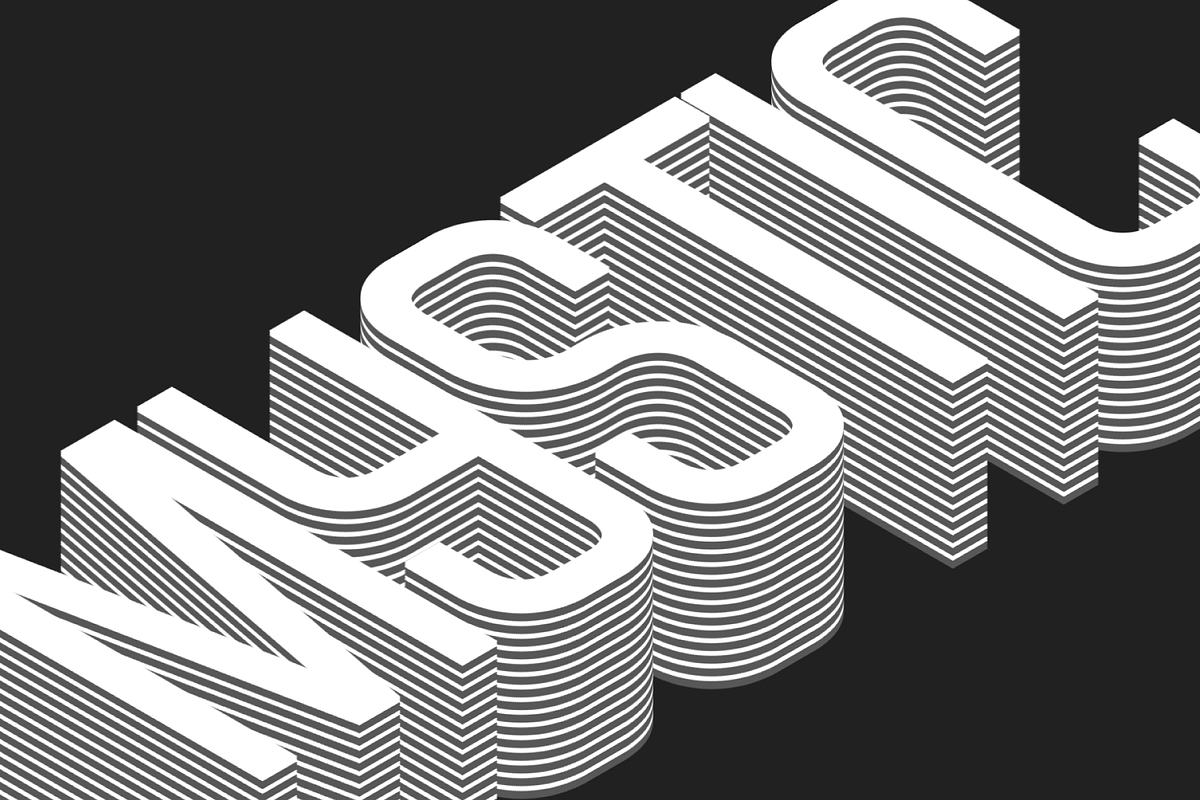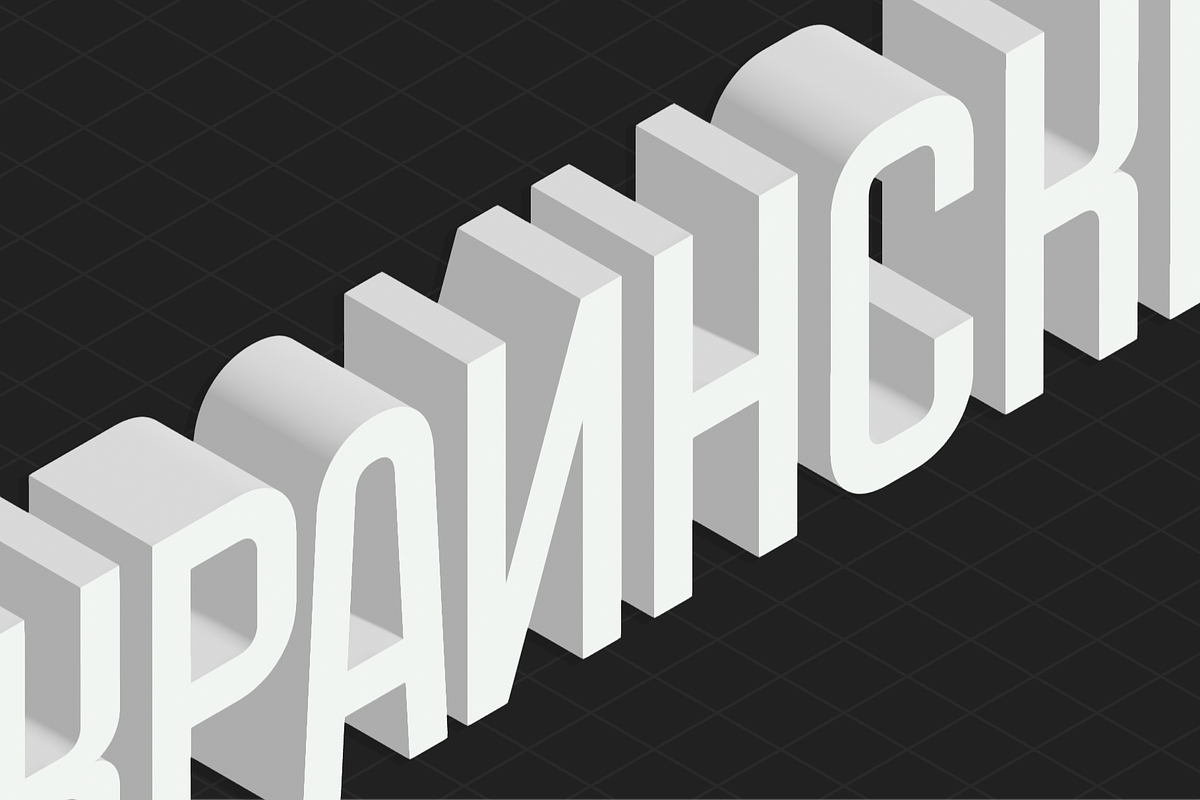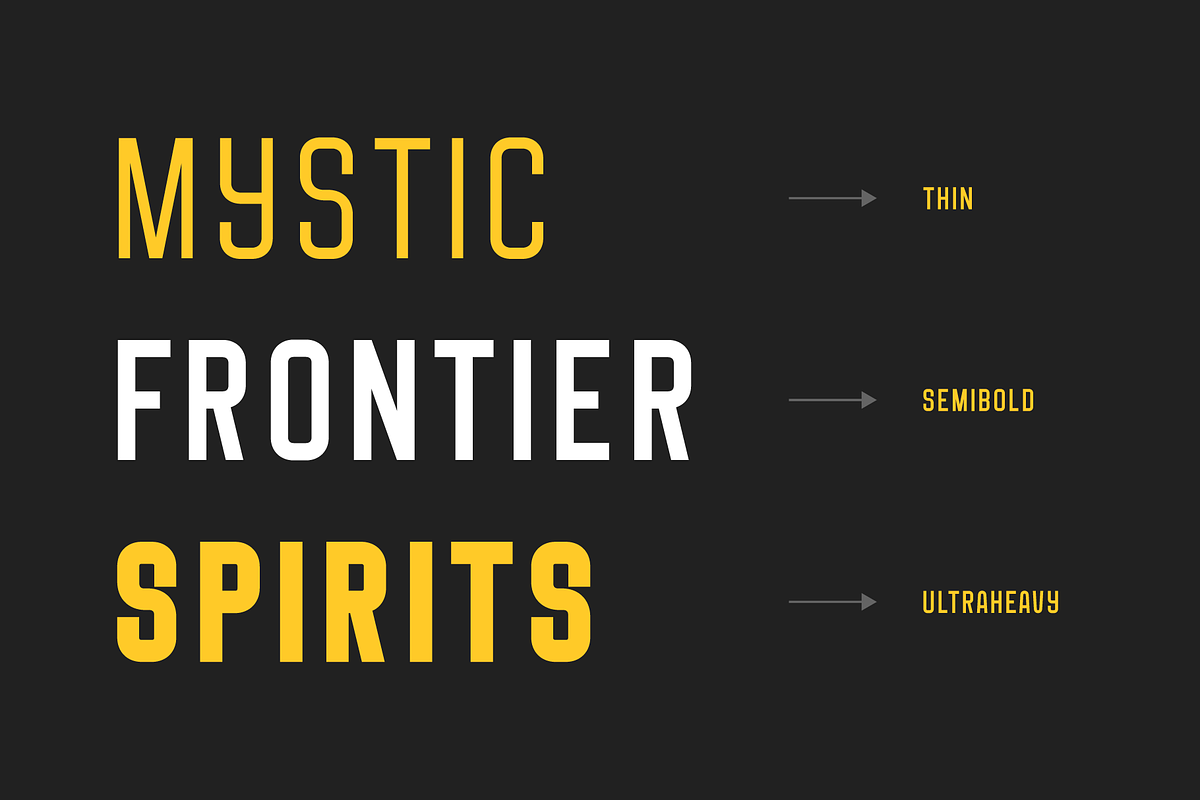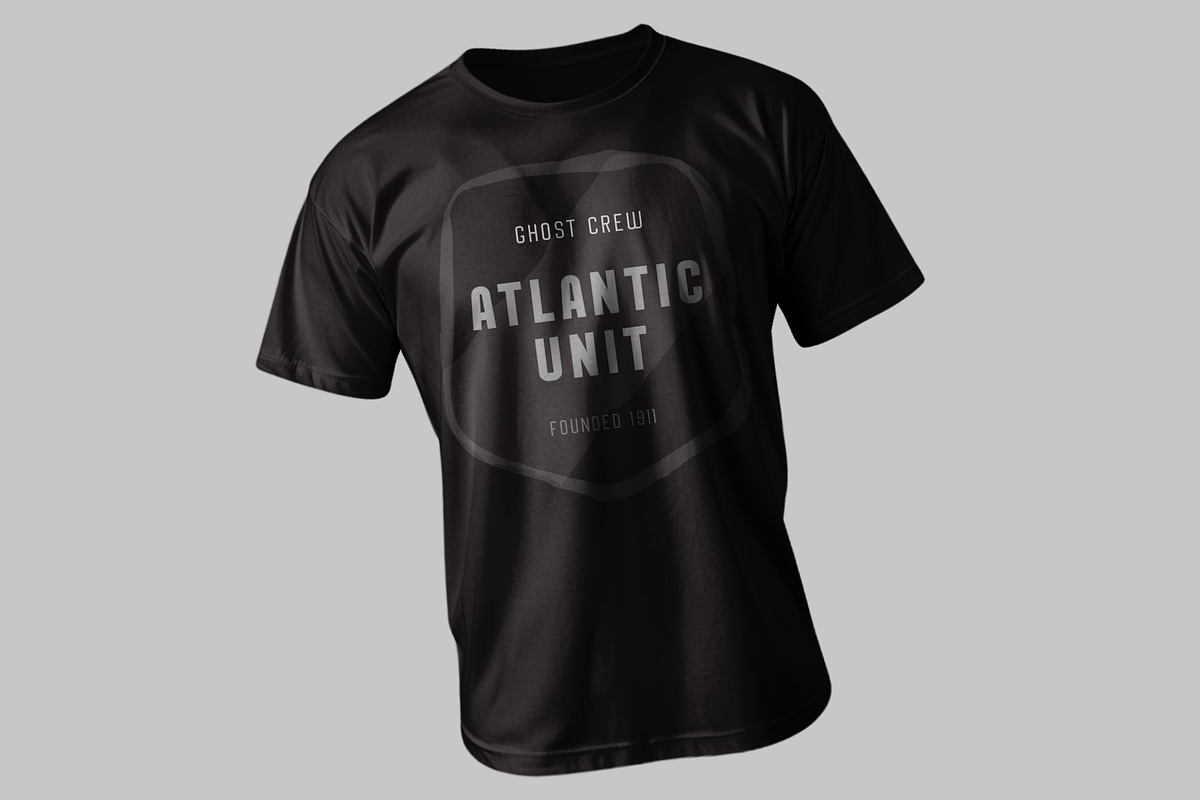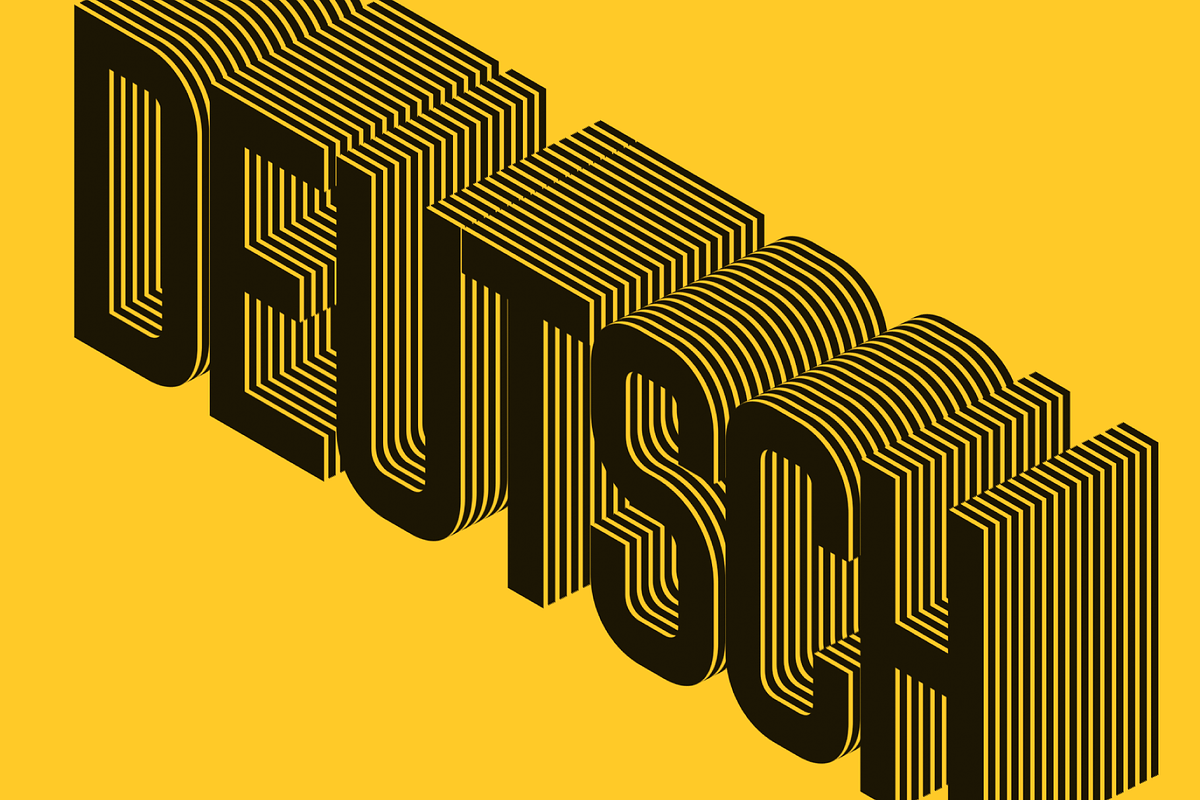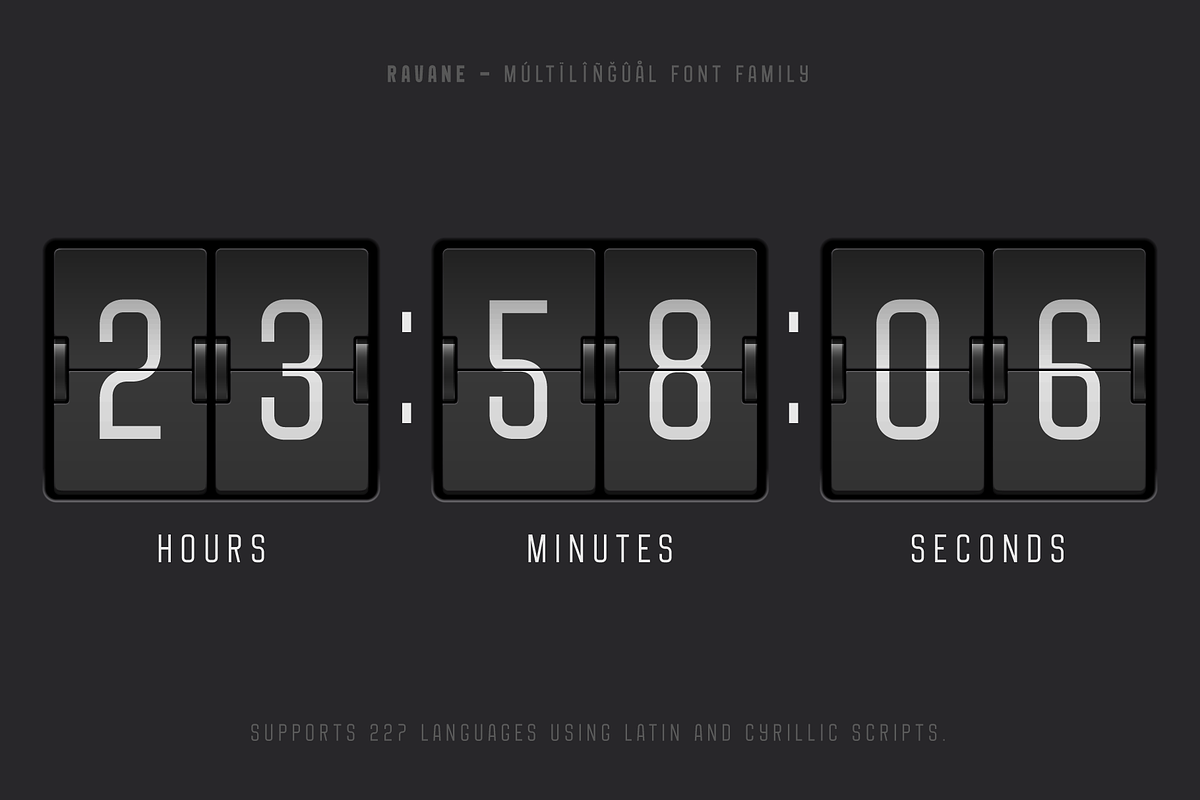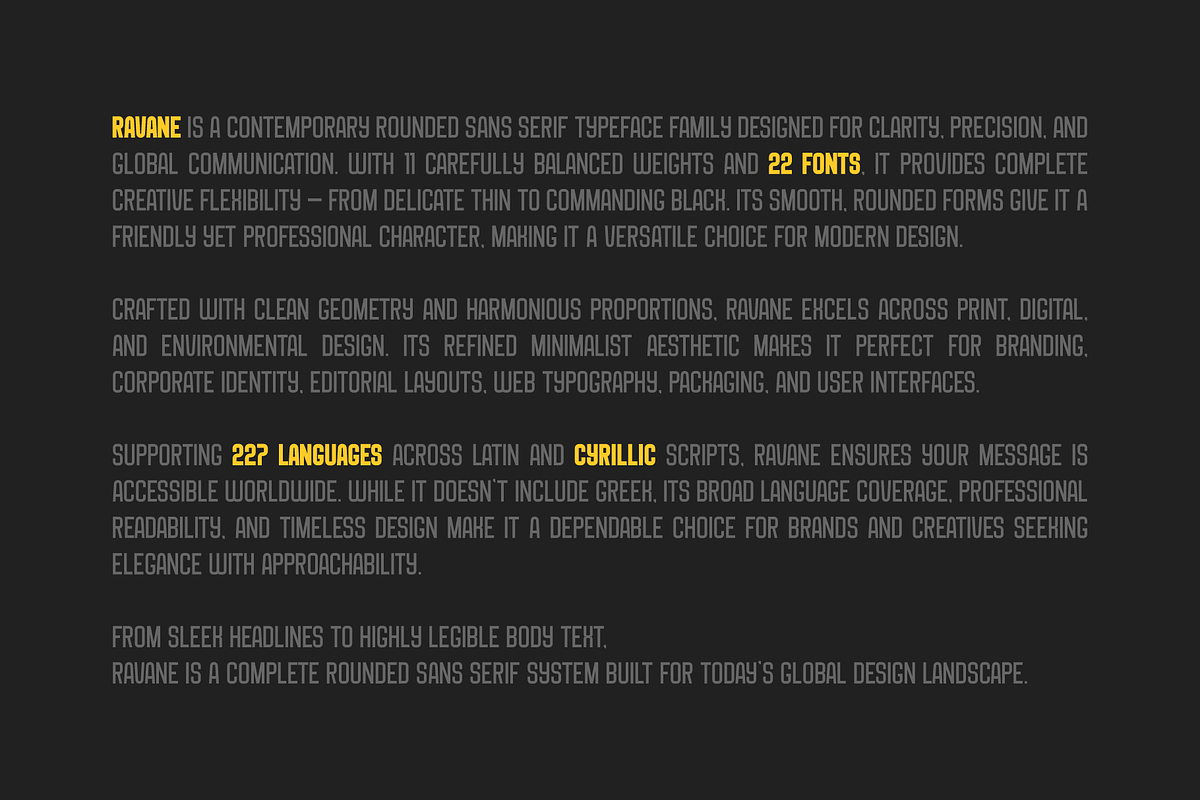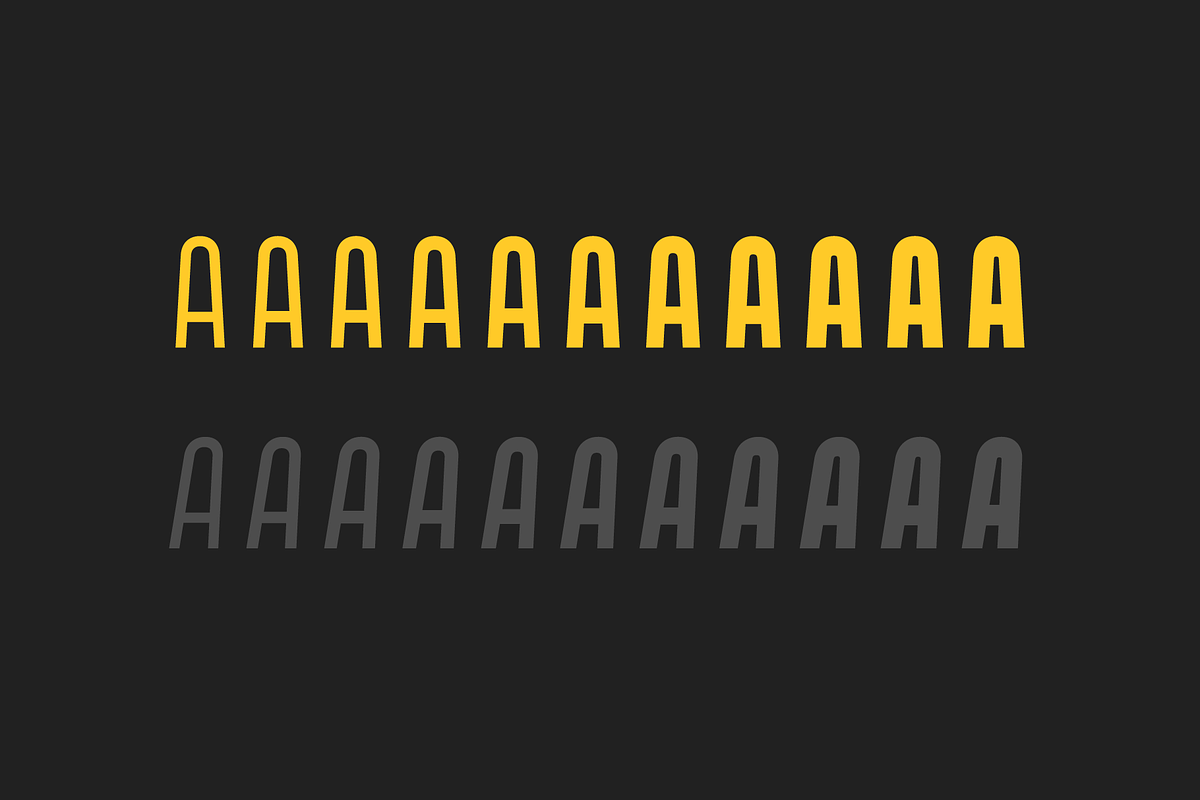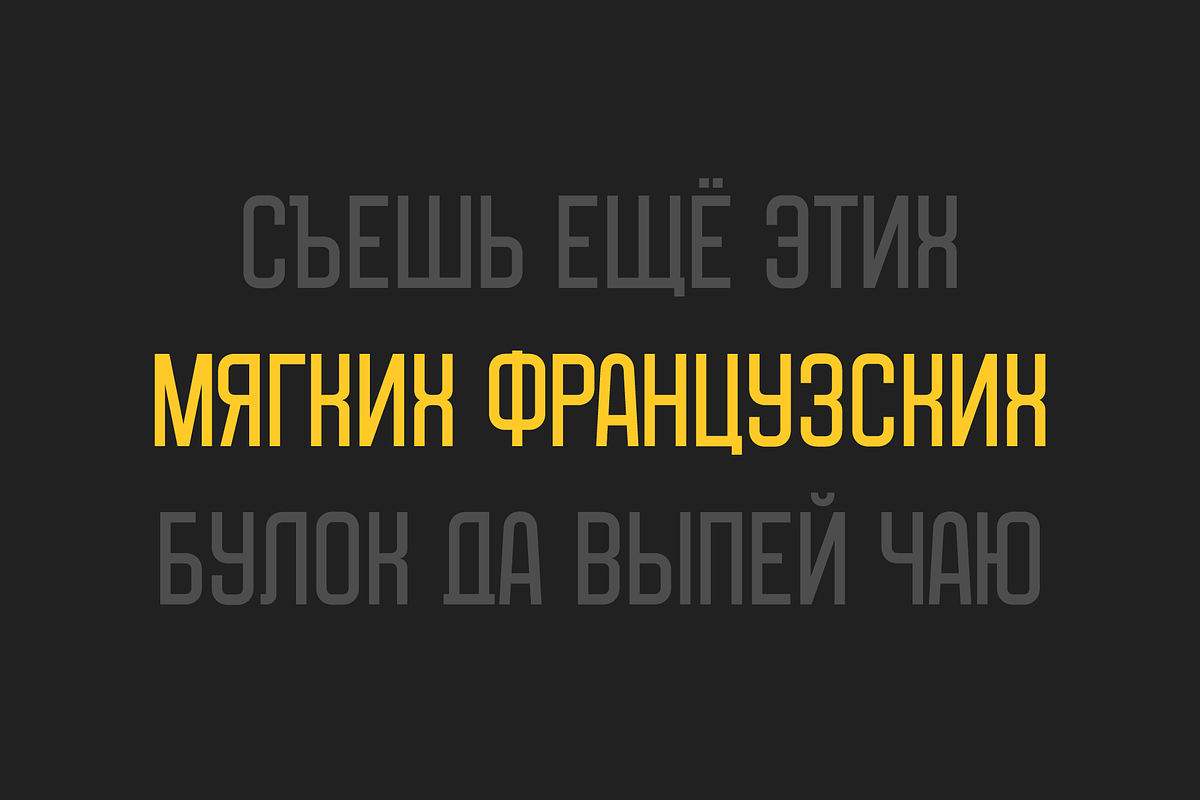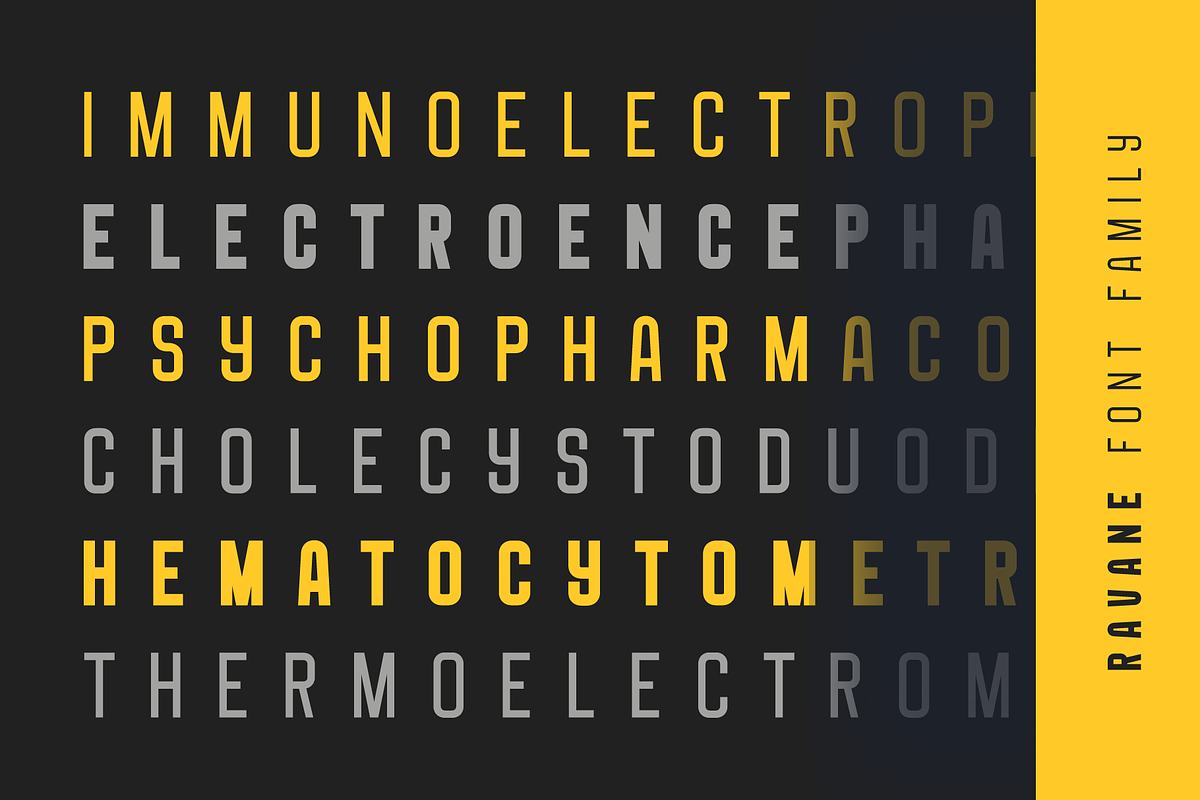
Ravane Font Family - 22 Fonts
✨ RAVANE – A Rounded Sans Serif Font Family
Ravane is a contemporary rounded sans serif typeface family crafted for clarity, warmth, and versatility. With 11 carefully tuned weights and 22 total fonts, it offers designers complete control — from delicate Thin to commanding UltraHeavy. Combining geometric precision with soft, approachable curves, Ravane balances professionalism with personality. Perfect for branding, editorial design, packaging, digital interfaces, and corporate identity, Ravane adapts seamlessly across modern design environments. Its clean geometry, smooth terminals, and refined proportions make it ideal for both print and screen — a dependable workhorse for global communication. Supporting 227 languages across Latin and Cyrillic scripts, Ravane ensures your message reaches audiences worldwide. Its multilingual coverage, elegant readability, and timeless minimalism make it a must-have font family for designers seeking sophistication and modern simplicity. From bold headlines to legible body text, Ravane isn’t just a typeface — it’s a complete rounded sans serif system built for today’s creative world.
🌟 Why Choose Ravane
Modern Simplicity: A clean, geometric sans with balanced, rounded forms. Friendly Precision: Smooth edges meet sharp design logic — perfect for brands with personality. Global Communication: Supports 227 languages across Latin and Cyrillic scripts. Professional Quality: Expertly spaced and optimized for both print and digital environments. Complete Flexibility: 11 weights, 22 styles — from Thin to Black with matching Italics. Timeless Versatility: Perfect for logos, magazines, packaging, and user interfaces.
🌍 Multilingual Support (227 Languages)
Ravane supports an extensive range of Latin and Cyrillic-based languages, ensuring seamless communication across international projects. Supported Languages include: Abkhazian • Acehnese • Adangme • Adyghe • Afrikaans • Albanian • Aleut • Angika • Aragonese • Arapaho • Aromanian • Asu • Avaric • Awadhi • Aymara • Azerbaijani • Balinese • Basque • Belarusian • Bemba • Bena • Bini • Bislama • Bosnian • Buginese • Bulgarian • Cajun French • Catalan • Cebuano • Chamorro • Cheyenne • Chiga • Chuukese • Colognian • Comorian • Cornish • Corsican • Croatian • Czech • Dakota • Danish • Dargwa • Dazaga • Dogrib • Dutch • Efik • Ekajuk • Embu • English • Erzya • Esperanto • Estonian • Faroese • Fijian • Filipino • Finnish • Fon • French • Friulian • Galician • German • Gilbertese • Gorontalo • Gusii • Gwichʼin • Haitian Creole • Herero • Hiligaynon • Hungarian • Hupa • Iban • Ibibio • Icelandic • Ido • Iloko • Indonesian • Interlingua • Irish • Italian • Javanese • Jju • Kabardian • Kabuverdianu • Kachin • Kalaallisut • Kalenjin • Kalmyk • Kamba • Kanuri • Karachay-Balkar • Karelian • Khasi • Kikuyu • Kimbundu • Kinyarwanda • Klingon • Komi • Koro • Kuanyama • Kumyk • Kurukh • Ladino • Latin • Latvian • Lezghian • Limburgish • Lithuanian • Lojban • Louisiana Creole • Lower Sorbian • Lozi • Luba-Lulua • Lule Sami • Lunda • Luo • Luxembourgish • Luyia • Machame • Madurese • Magahi • Makasar • Makhuwa-Meetto • Makonde • Malagasy • Malay • Maltese • Manx • Māori • Mari • Marshallese • Mende • Meru • Minangkabau • Mirandese • Mizo • Moksha • Morisyen • Mossi • Nauru • Ndonga • Neapolitan • Newari • Ngambay • Nias • Niuean • Nogai • North Ndebele • Northern Sotho • Norwegian Bokmål • Norwegian Nynorsk • Nyanja • Nyankole • Occitan • Oromo • Palauan • Pampanga • Pangasinan • Papiamento • Polish • Portuguese • Rapanui • Rarotongan • Romanian • Romansh • Rombo • Rundi • Russian • Rwa • Samburu • Sandawe • Sango • Sangu • Sardinian • Scots • Scottish Gaelic • Sena • Serbian • Shambala • Shan • Shona • Sicilian • Siksiká • Skolt Sami • Slovak • Slovenian • Soga • Somali • Soninke • South Ndebele • South Sámi • Southern Altai • Southern Sotho • Spanish • Sranan Tongo • Sukuma • Sundanese • Swahili • Swati • Swedish • Swiss German • Tahitian • Taita • Taroko • Teso • Tetum • Timne • Tok Pisin • Tsonga • Tswana • Tumbuka • Turkish • Turkmen • Tuvalu • Tuvinian • Udmurt • Umbundu • Upper Sorbian • Vunjo • Walloon • Waray • Welsh • Wolastoqey • Xhosa • Yemba • Zaza • Zulu • Zuni
Ravane was designed by Alper Çakıcı, a multidisciplinary designer dedicated to creating professional, multilingual typefaces. His work blends geometric clarity with expressive detail, resulting in fonts that empower designers worldwide with functional, precise, and contemporary tools for modern visual communication.